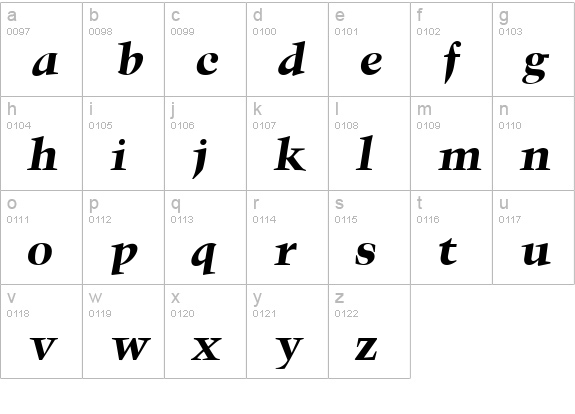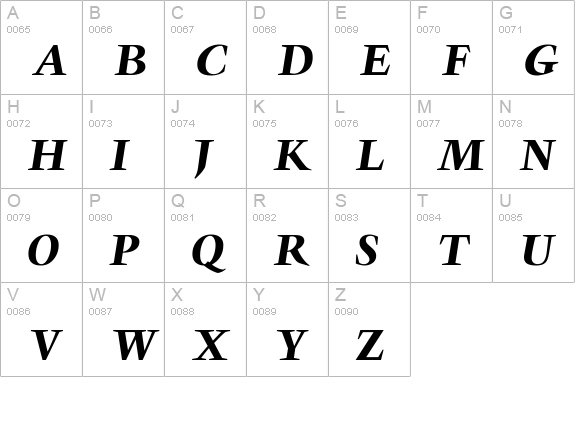
Triumph Bold Italic is a strong, high-contrast, italic variant in the Triumph typeface family \xE2\x80\x94 well suited to headlines, attention-grabbing titles, and strong calls-to-action.
Triumph Bold Italic font is a stunning typeface that effortlessly combines elegance with a touch of boldness. This font is perfect for those who want to make a lasting impression with their designs, whether it's for branding, advertising, or any creative project that requires a distinctive and eye-catching touch. With its sleek and sophisticated curves, Triumph Bold Italic font exudes confidence and professionalism. It adds a sense of modernity while maintaining a classic appeal, making it versatile for a wide range of design applications. Whether you're designing a logo, a website, or even a print advertisement, this font will elevate your work to new heights. One of the best things about Triumph Bold Italic font is that it is available for free download at FontsMarket.com. This means that you can easily access this exceptional font without breaking the bank. FontsMarket.com offers a vast collection of fonts, and Triumph Bold Italic is just one of the many gems you can find there. So why wait? Take advantage of this opportunity to enhance your designs with Triumph Bold Italic font. Download it for free from FontsMarket.com and see how it transforms your work into a masterpiece. With its bold strokes and elegant curves, this font will surely make a lasting impression on your audience. Don't miss out on this incredible typeface – get Triumph Bold Italic font now and let your creativity shine.